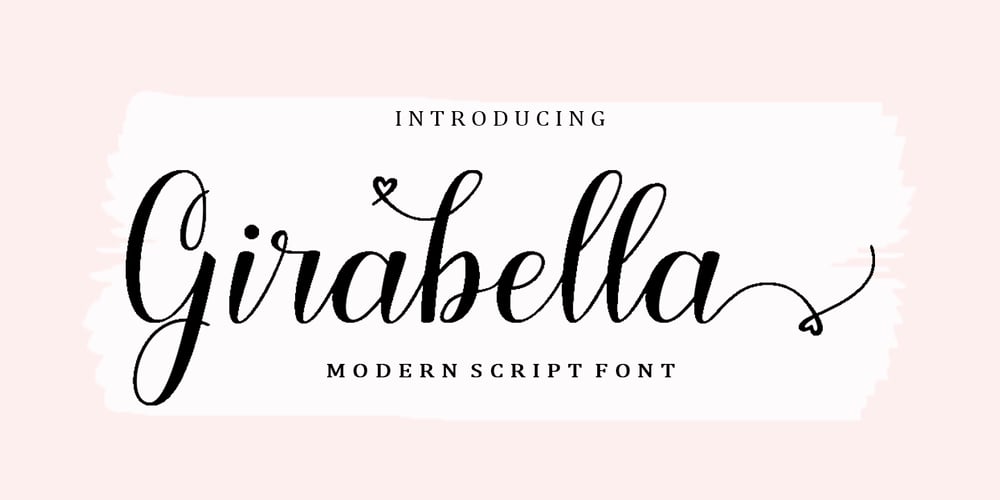
Girabella
Girabella font
Girabella Font Family was designed by Mu Fazzal and published by Bosstypestudio. Girabella contains 1 styles and family package options. Girabella Script is a modern calligraphy font with a dancing baseline and a clean, classic and elegant touch.It can be used for various purposes such as headings, signature, logos, wedding invitations, t-shirt, letterhead, signage, lable, news, posters, badges etc.Girabella Script features 350 total glyphs with 150 alternate characters including OpenType Stylistic alternates, ligatures and international language support.To enable the OpenType Stylistic alternates, you need a program that supports OpenType features such as Adobe Illustrator CS, Adobe Photoshop CC (With Glyphs Panel), Adobe Indesign & CorelDraw X6-X7, Microsoft Word 2010 or later versions. Also supported PUA encoded, simply copy and paste the alternate characters using the Character Map (Windows), Nexus Font (Windows), Font Book (Mac) or a software program such as PopChar (for Windows and Mac).